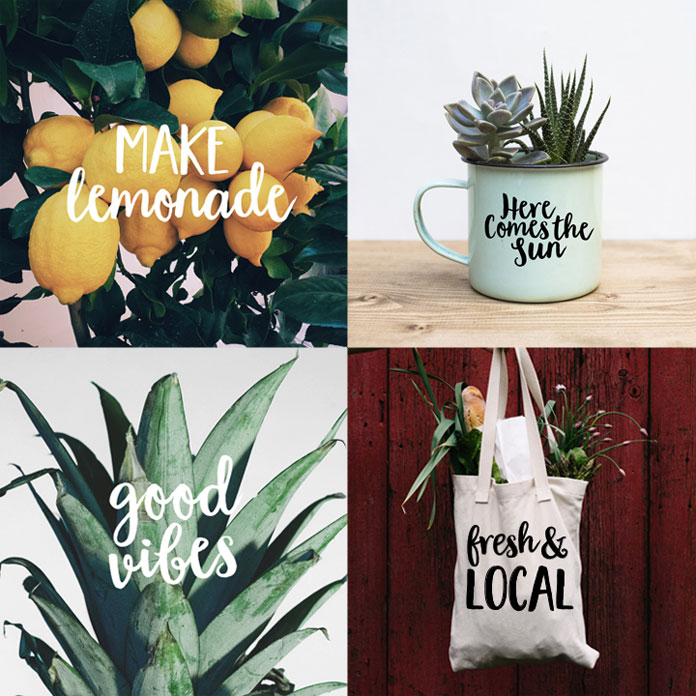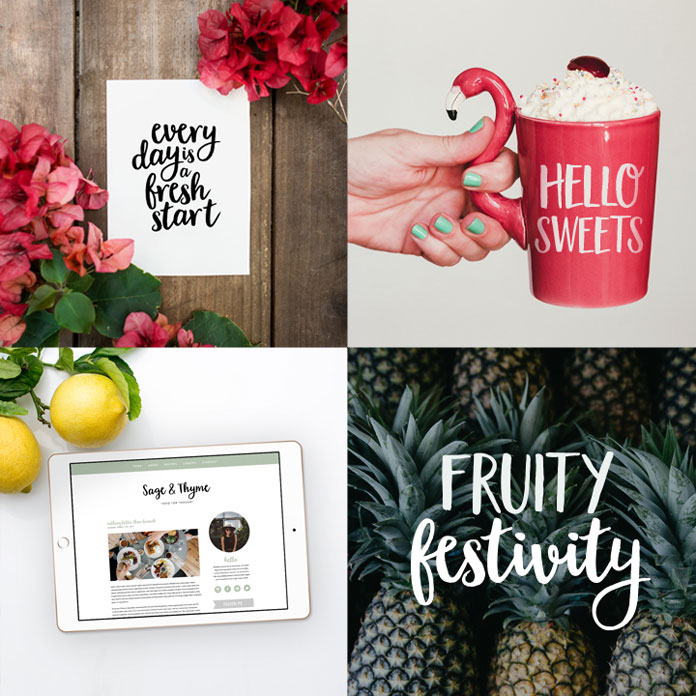
Garden Grown, a pairing of 2 lovely handwritten fonts created by Cindy Kinash of Cultivated Mind.
Cindy Kinash is a Canadian type designer. In 2012 she started her own foundry named Cultivated Mind. Cindy Kinash is best known for her fine collection of handwritten fronts. With great attention to detail she creates natural looking typefaces that convey a pleasant hand-drawn look and feel. Garden Grown is one of her new creations. The beautiful handmade font duo was published in April, 2016. You can use them for a variety of applications including poster artworks, invitations, book covers, marketing materials, stationery, magazines, and other typographic work. Garden Grown comes with an all caps and script typeface. The script version is equipped with additional alternative letters and ligatures.